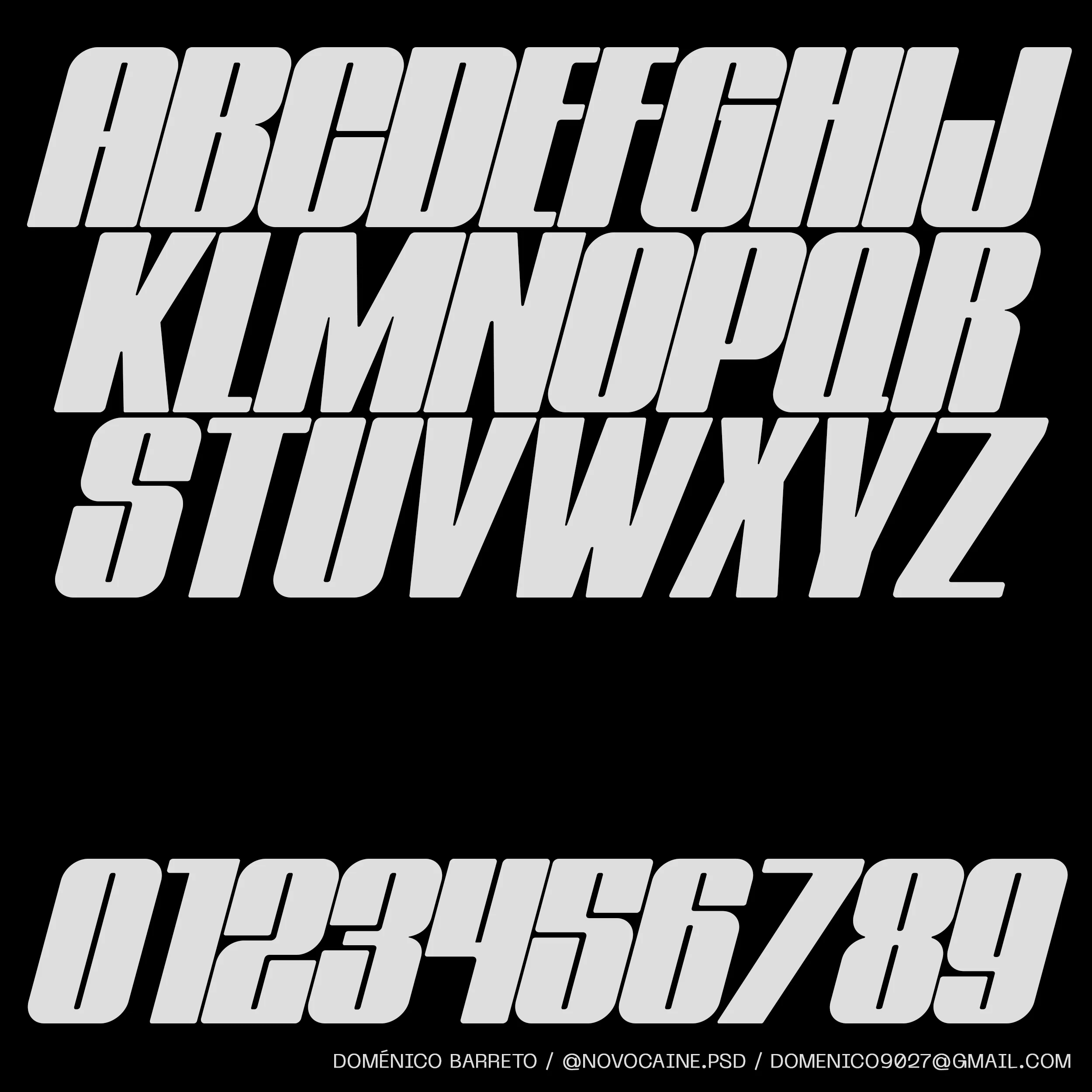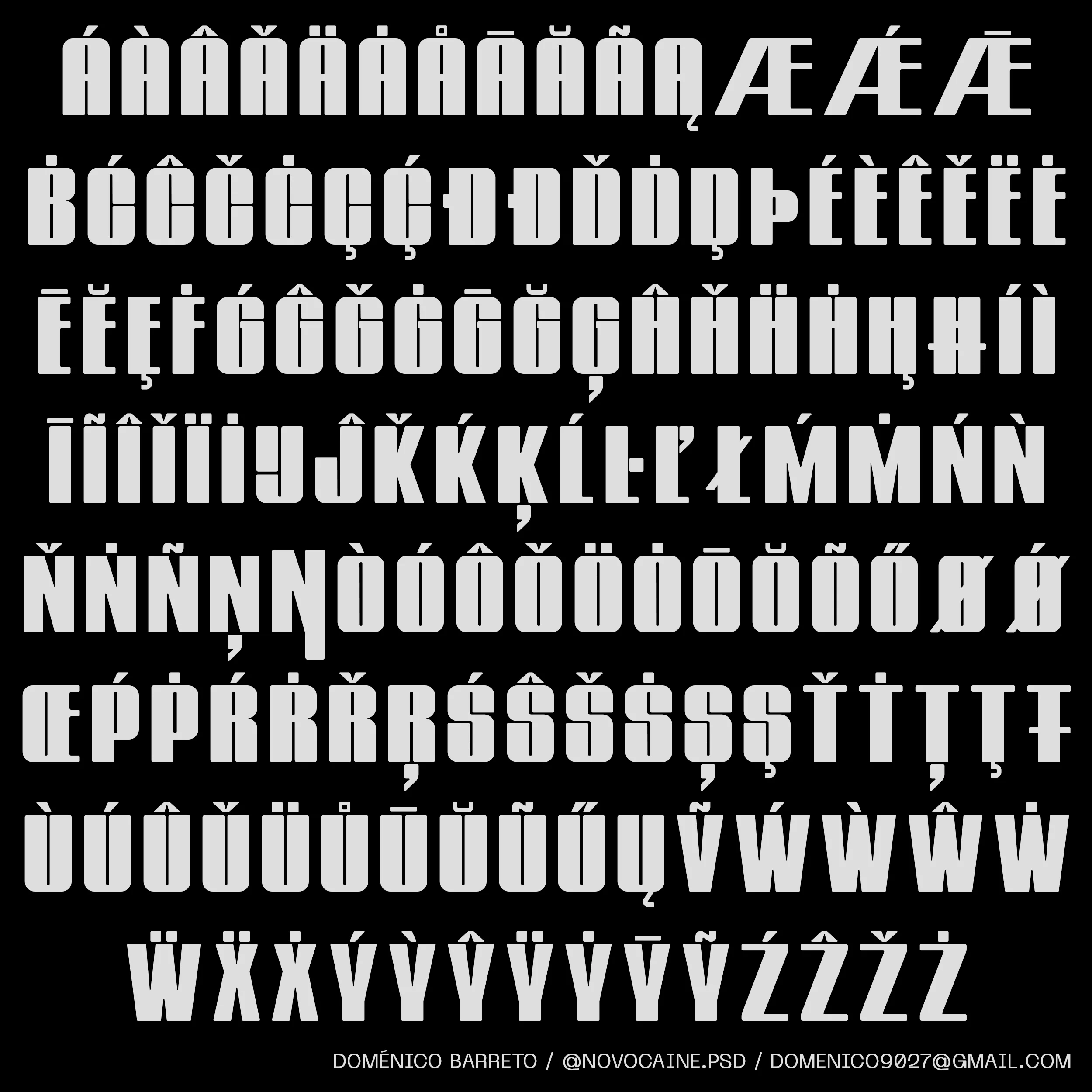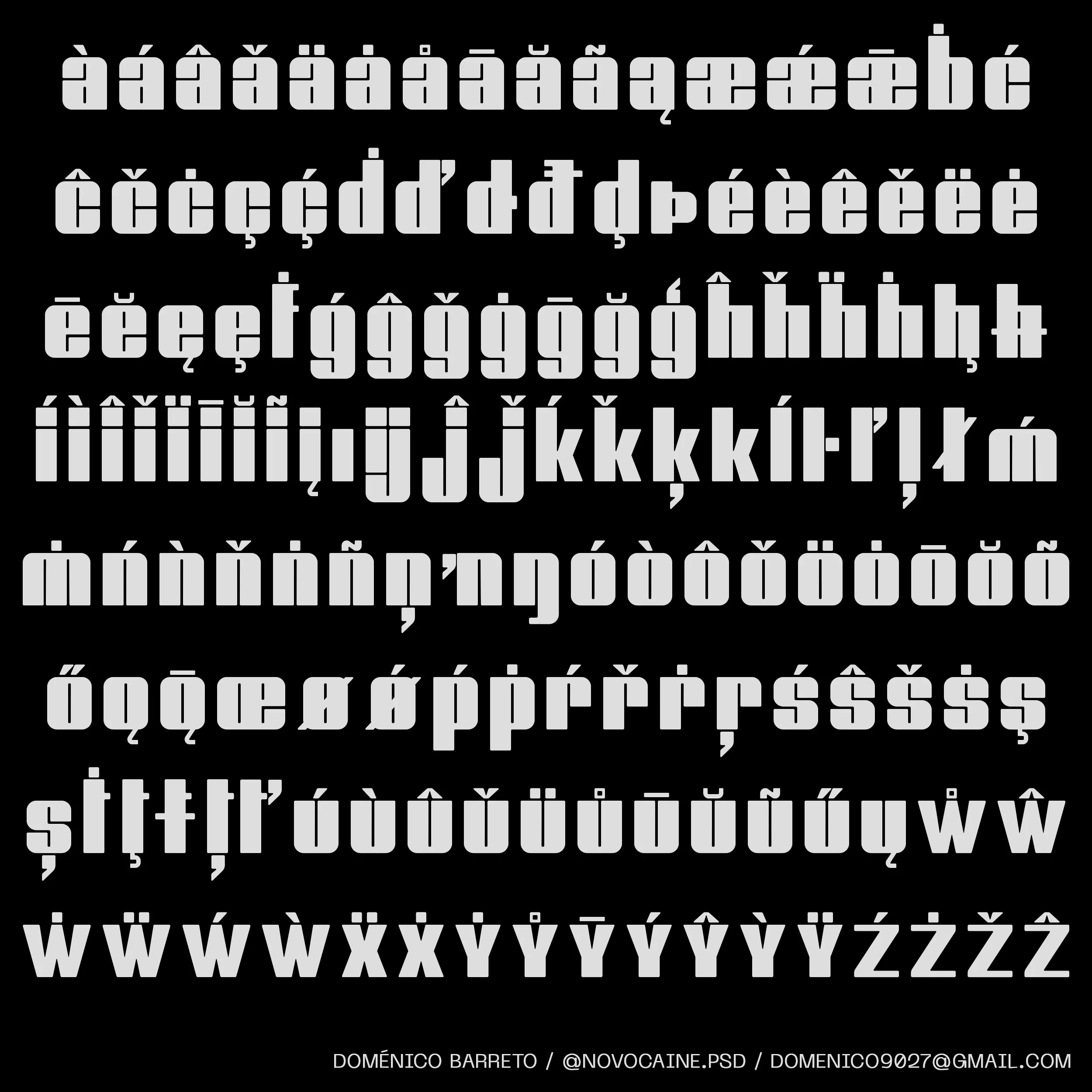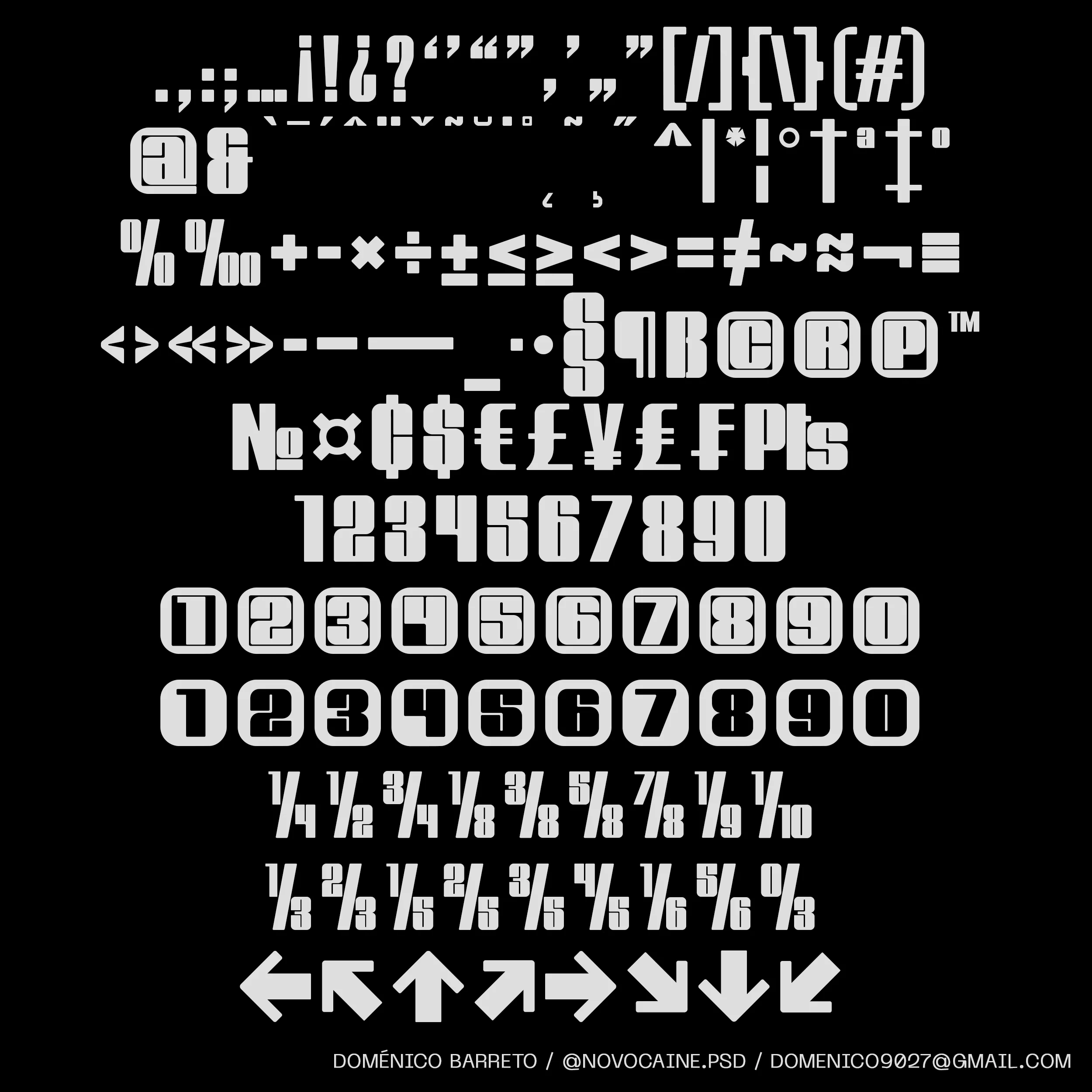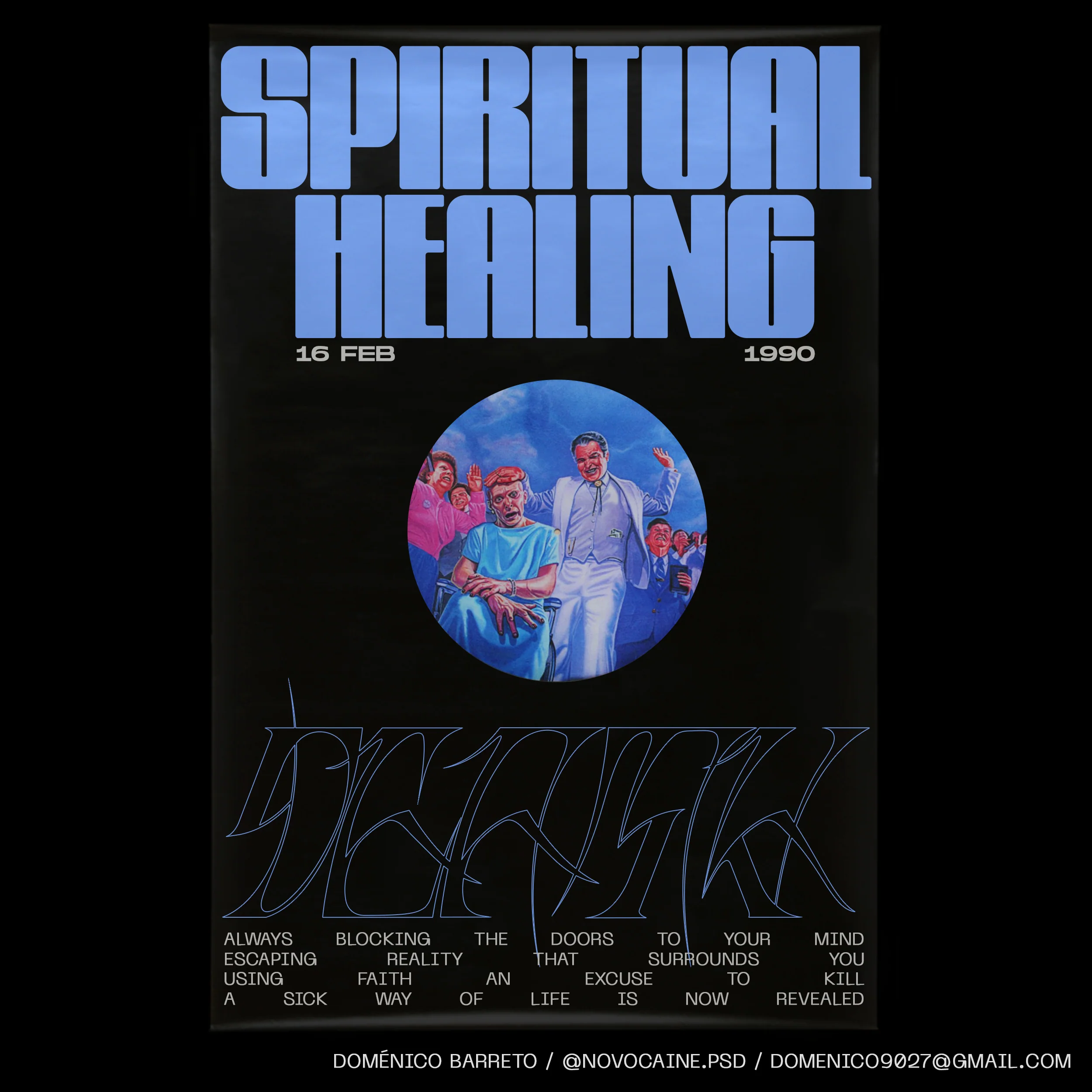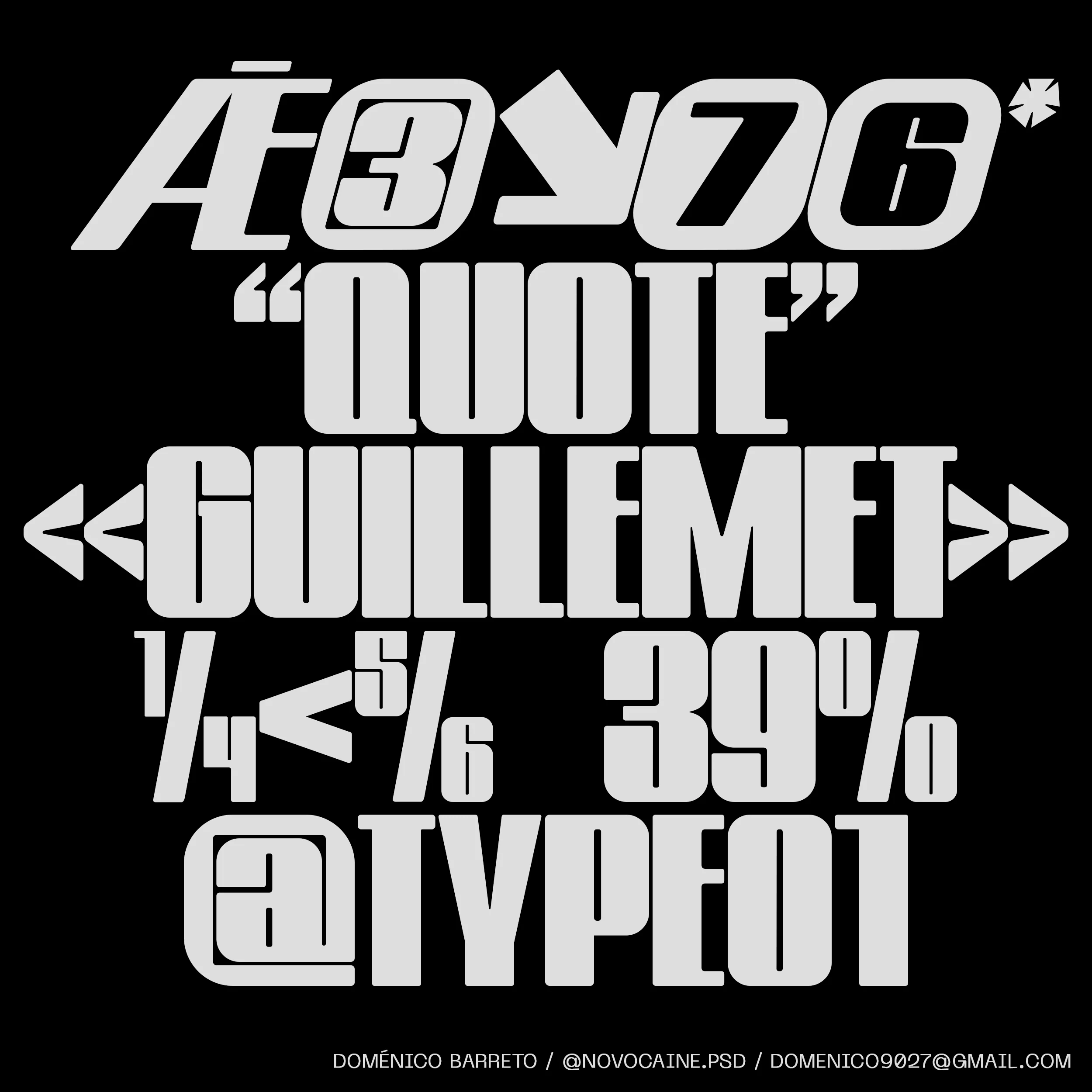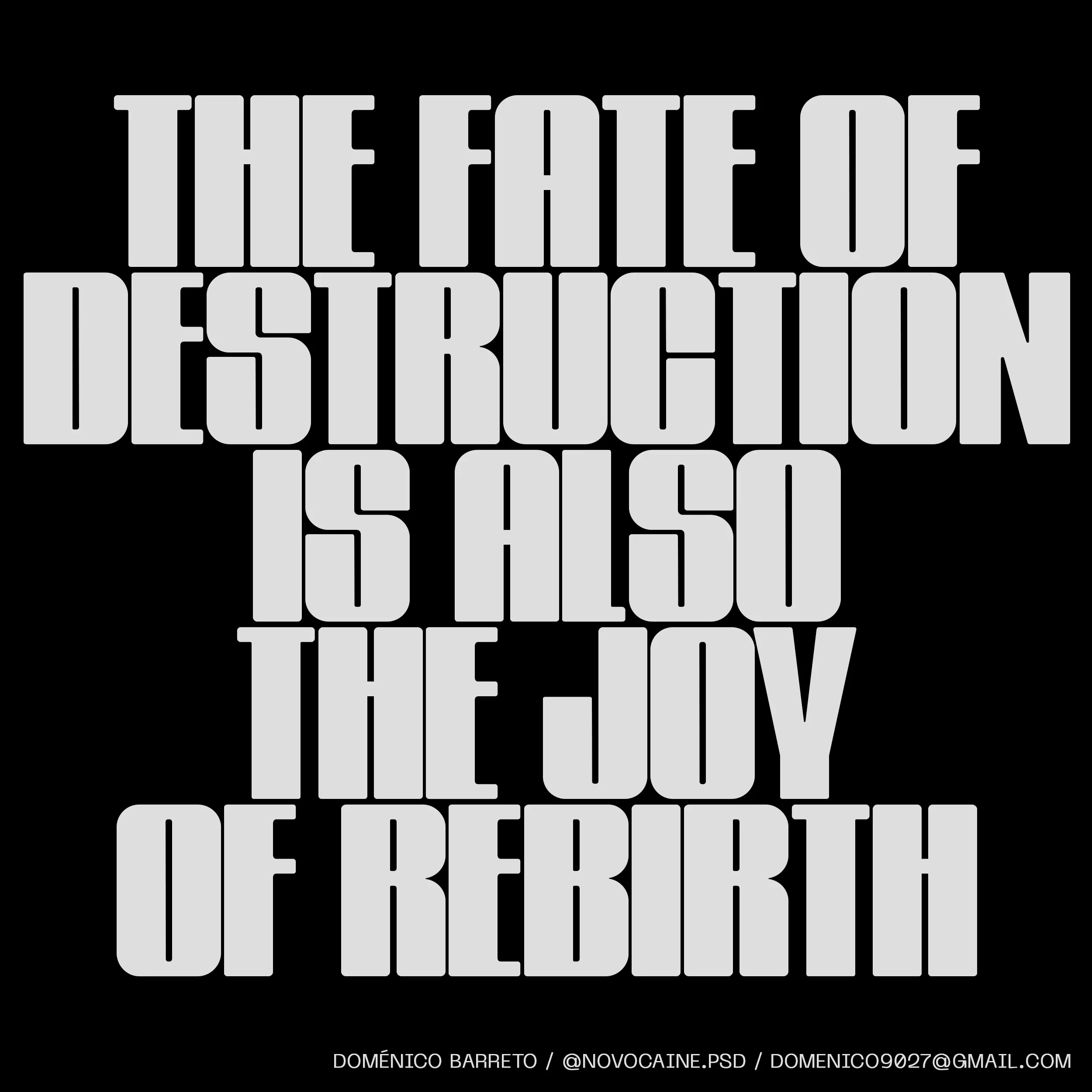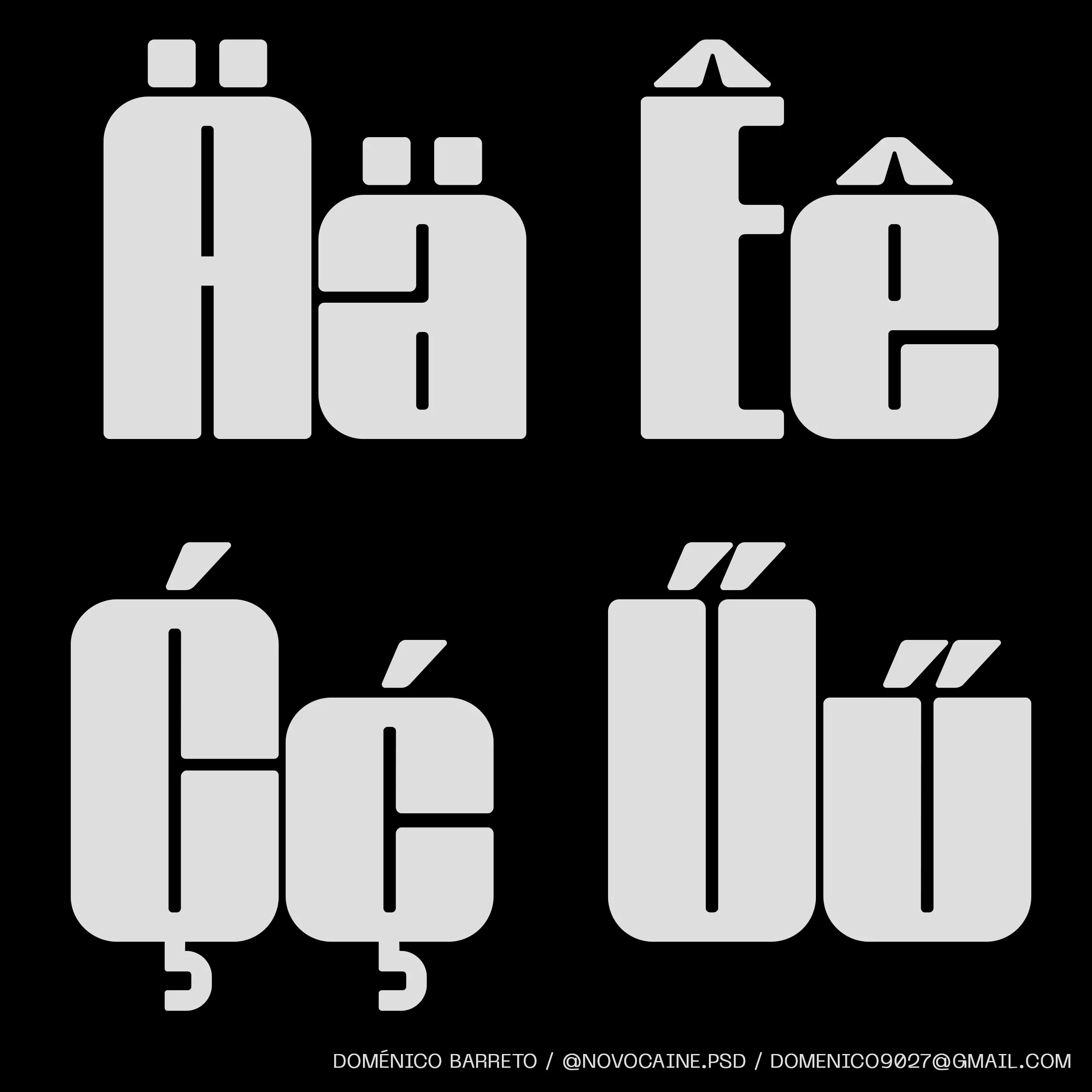
Evangelion Font Family
Evangelion is a striking sans-serif display typeface inspired by the iconic works of Wim Crouwel and the anime series Evangelion. Designed to make a bold statement, Evangelion is perfect for creating standout headlines that captivate and impress.
Use Evangelion to infuse your projects with a powerful presence, ensuring your message is both impactful and unforgettable.